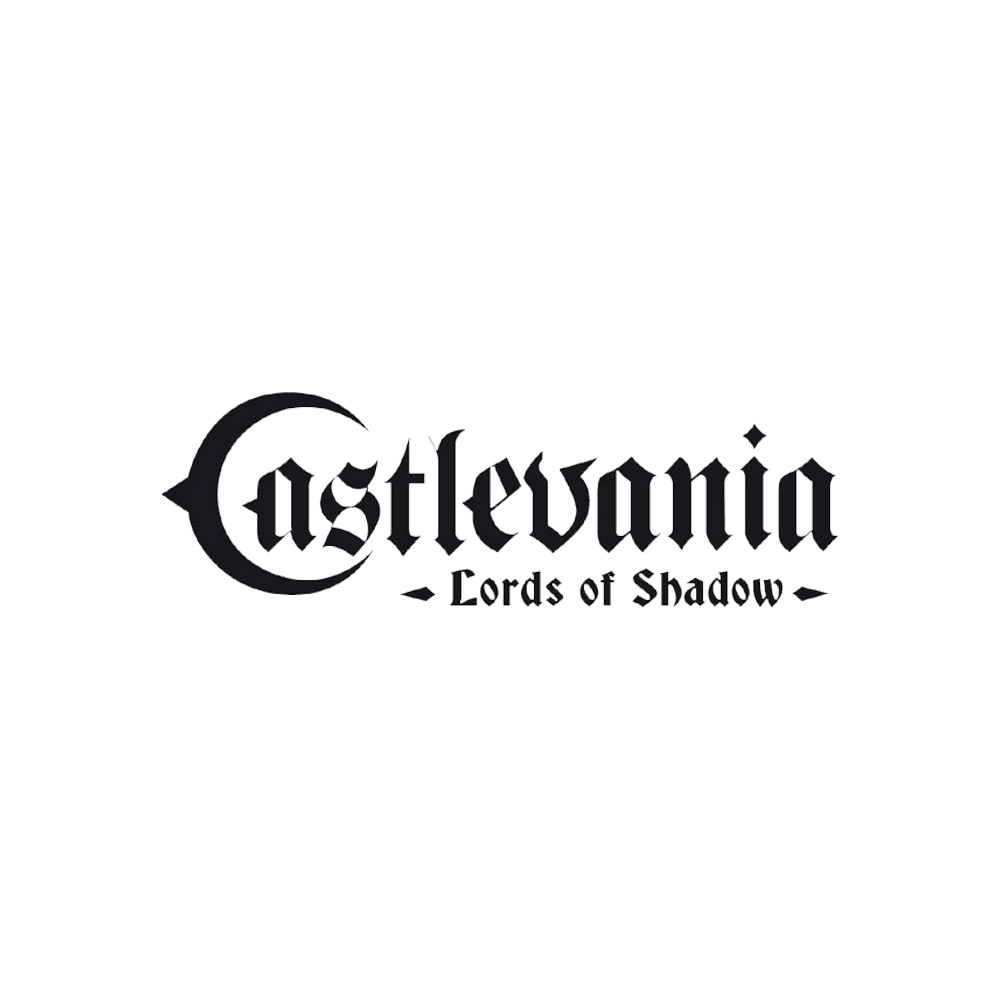
Castlevania Font
ActionCastlevania released for the NES in 1986 is a typical platform game set in the eponymous castle of Count Dracula. The player takes the role of Simon Belmont, a descendant of the Belmont clan, a family of vampire hunters, and fights his way through the castle annihilating Dracula himself and the castle.
The Castlevania game logo is similar to the blackletter typeface, which is very much like Fette Fraktur. Fette means bold while fraktur was the principal German vernacular type, a style of blackletter. You can view more details here.